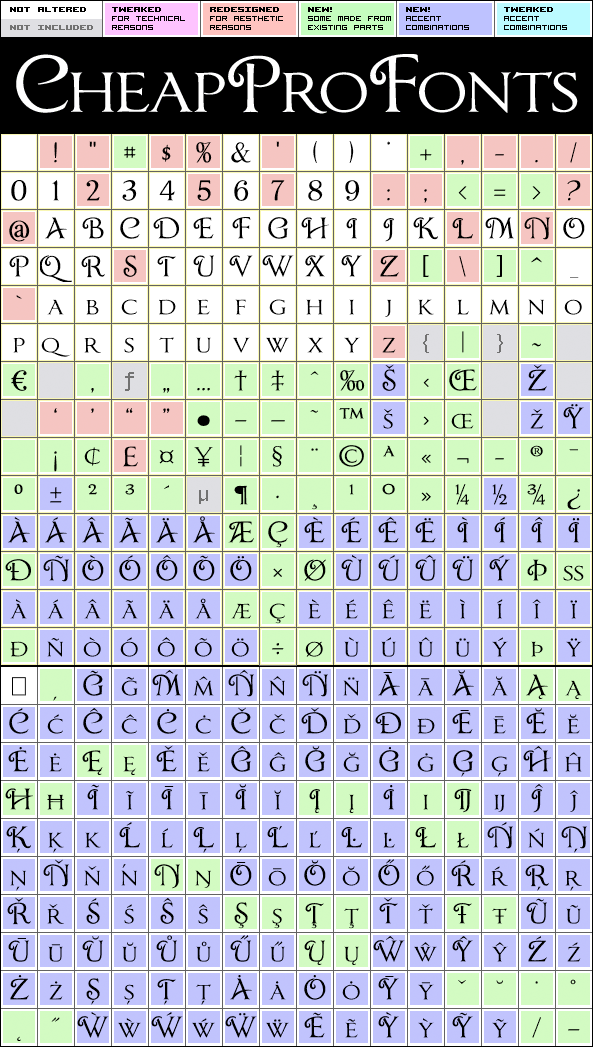
Chocolate Box Pro by Paul Lloyd
786 class kernpairs
= 18165 kerning pairs
(247 in original)
The lowercase has classical roman letterforms, and together with the cute, swirly capitals they make for a slightly more feminine take on the genre. Trajan lettering - with added sugar! :)
Chocolate Box Pro is a professionally reworked font that contains an extended character set for setting text in 65 languages requiring more than the basic A-Z!